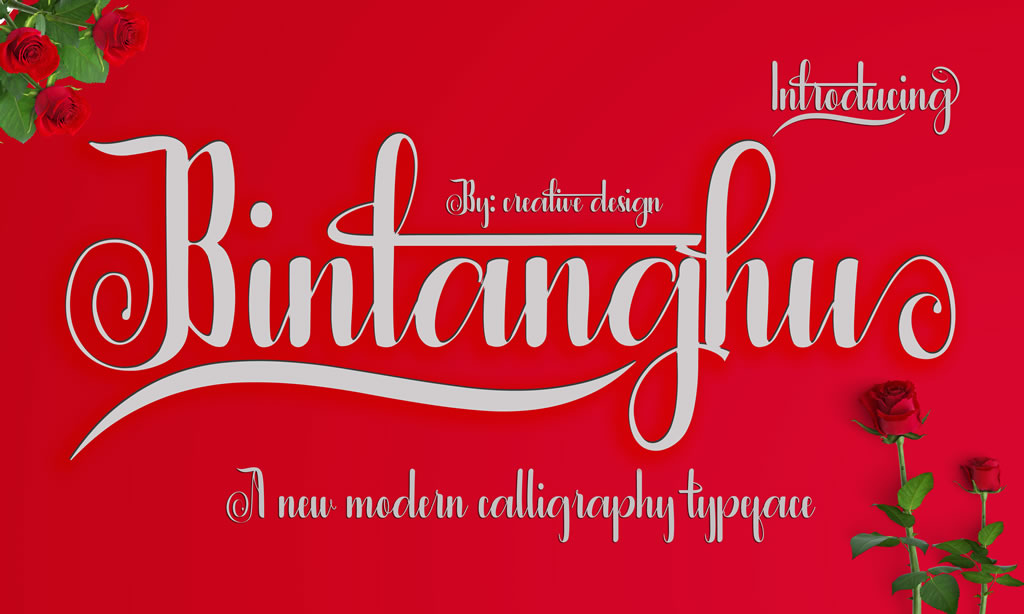
Step into the enchanting world of Bintanghu, a mesmerizing script font family that will cast a spell on your designs. Unleash your creativity with this magical font, meticulously crafted to evoke emotions and leave an unforgettable impact. Each letter dances across the page like a delicate brushstroke, capturing the essence of handwritten elegance.
Immerse yourself in the beauty of Bintanghu's captivating curves and flourishes, a true testament to the art of typography. This font family is a symphony of graceful strokes, whispering tales of romance, nostalgia, and timeless charm. With Bintanghu, your words will come alive, enchanting your audience and leaving them captivated.
Whether you're crafting heartfelt invitations, designing enchanting logos, or creating stunning social media posts, Bintanghu will elevate your projects to new heights. Its versatile nature makes it a perfect choice for a wide range of applications, from elegant wedding stationery to whimsical branding materials.
With Bintanghu, you'll discover a world where imagination knows no bounds. Its intricate details and expressive characters will add a touch of magic to your designs, leaving a lasting impression on all who encounter them. Embrace the allure of Bintanghu and unlock the enchanting potential within your creative endeavors.